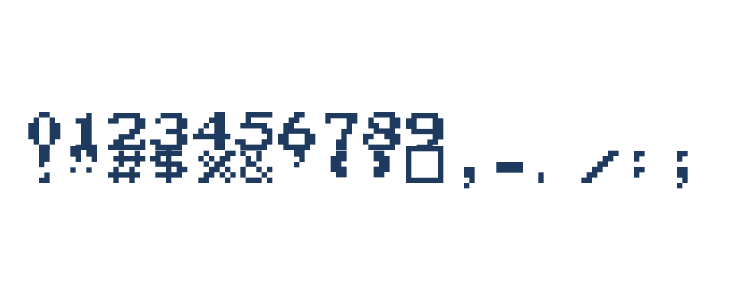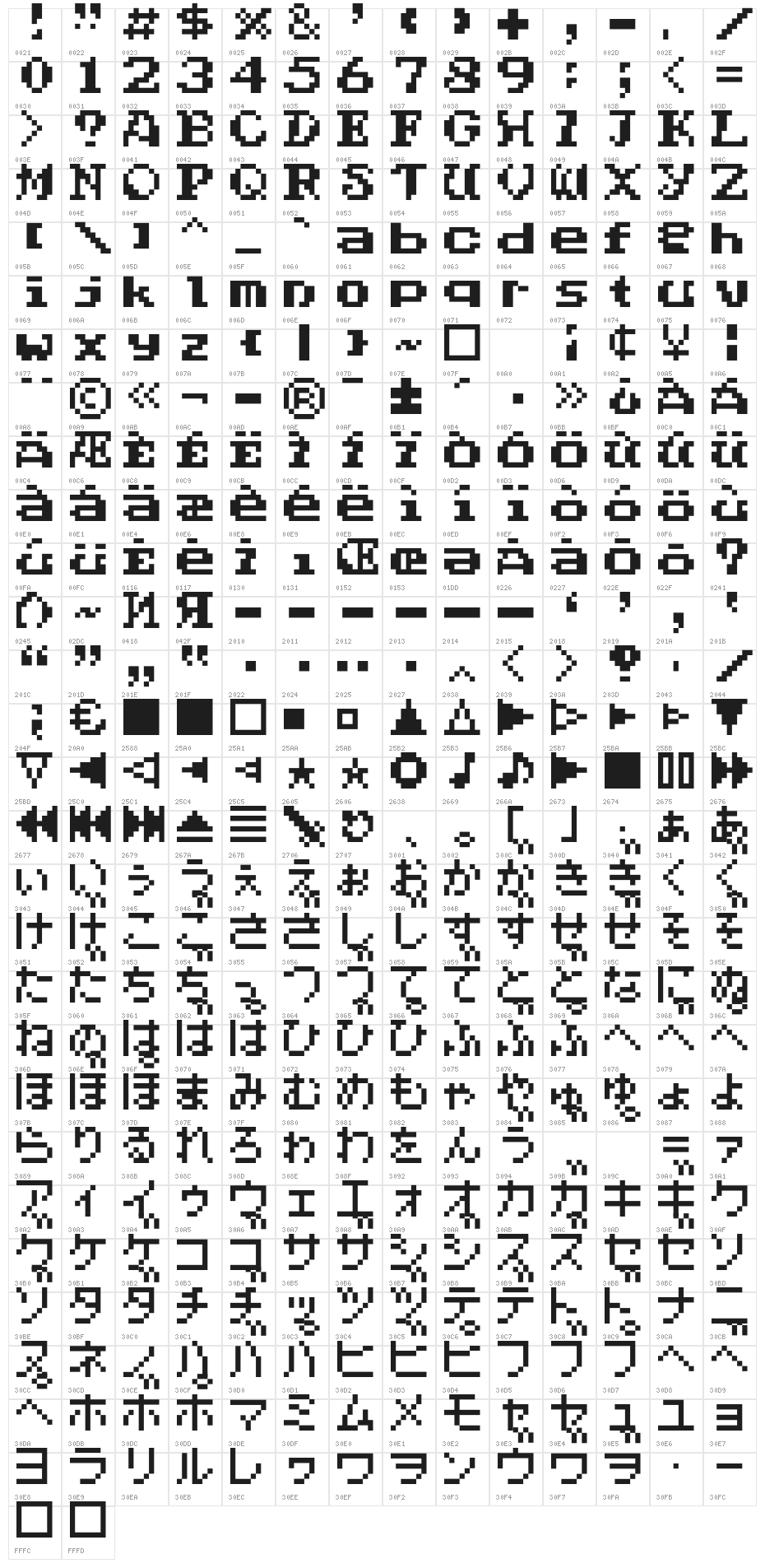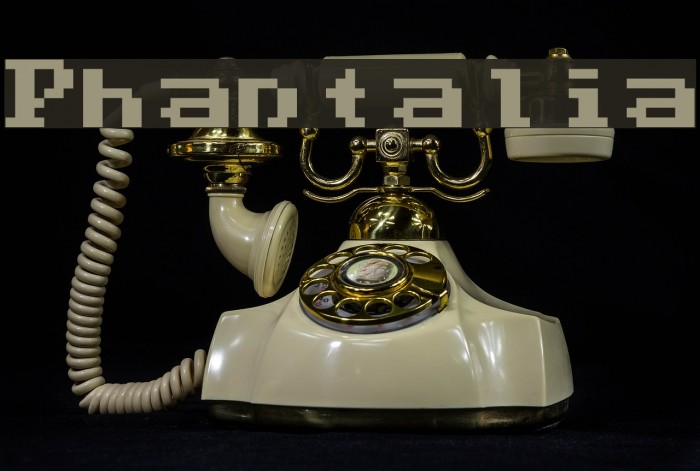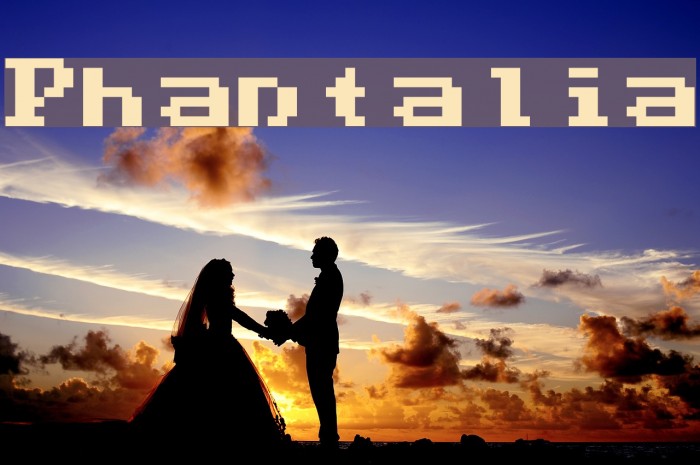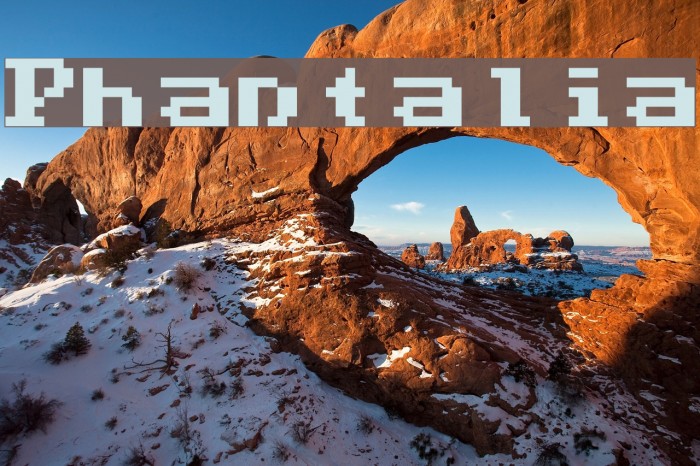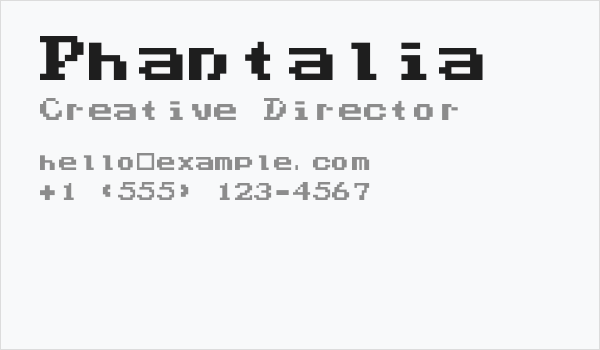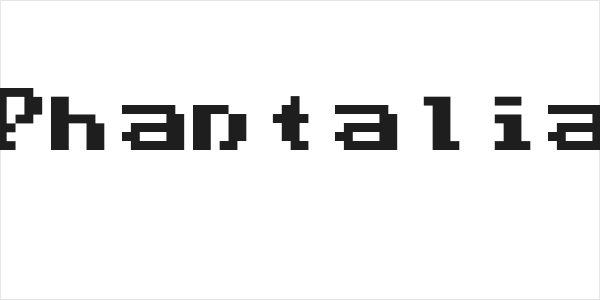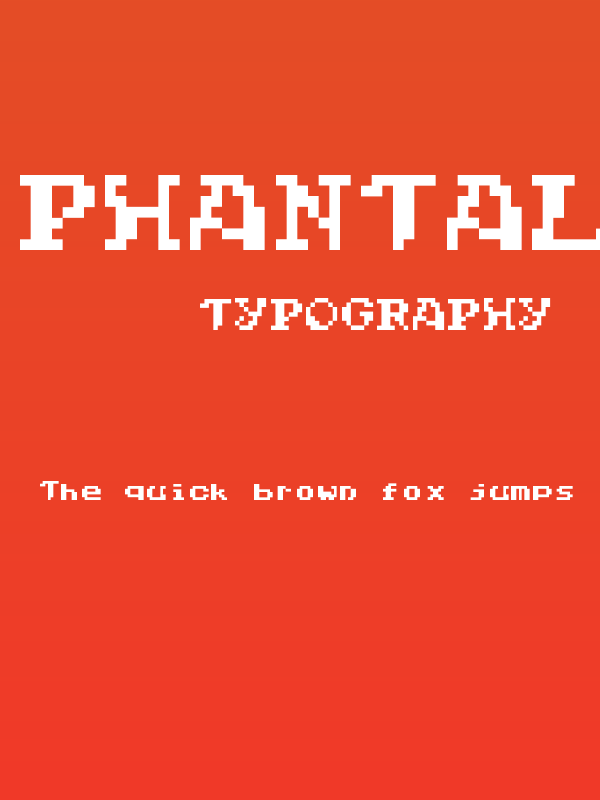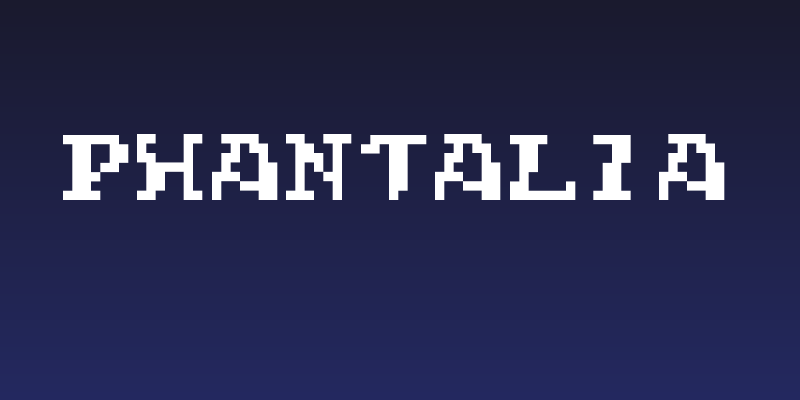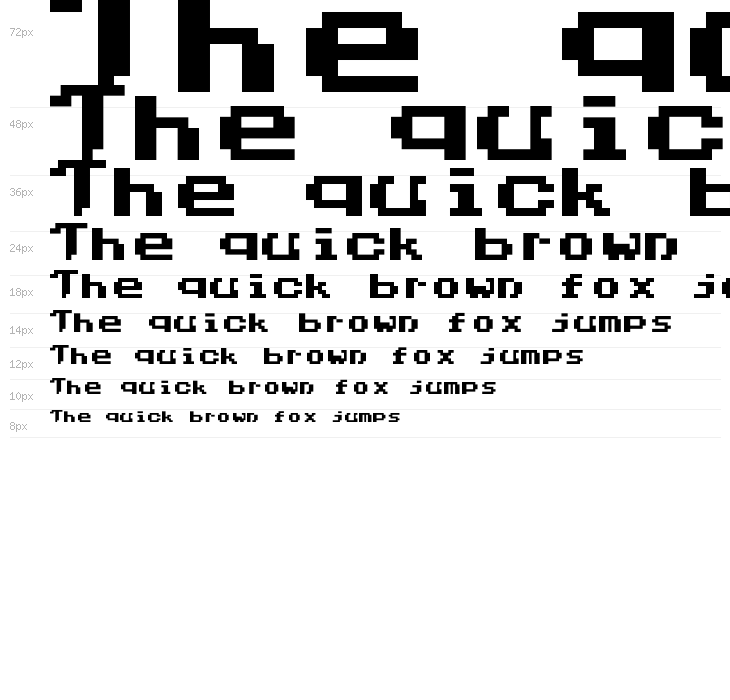
Phantalia Font
Phantalia Description
This font features a pixelated, blocky design reminiscent of early digital or video game typography. Each character is composed of distinct square blocks, giving it a retro, 8-bit appearance. The uppercase and lowercase letters maintain a consistent height, with the lowercase slightly smaller but equally bold. The numerals and special characters follow the same pixelated style, ensuring uniformity across all glyphs. This font's nostalgic aesthetic is perfect for projects aiming to evoke a sense of classic gaming or digital nostalgia.
| Overall Style | Retro, Digital |
| Proposed Projects | Ideal for video game design, retro-themed posters, digital art projects, and any creative work that seeks to capture the essence of early digital typography. |